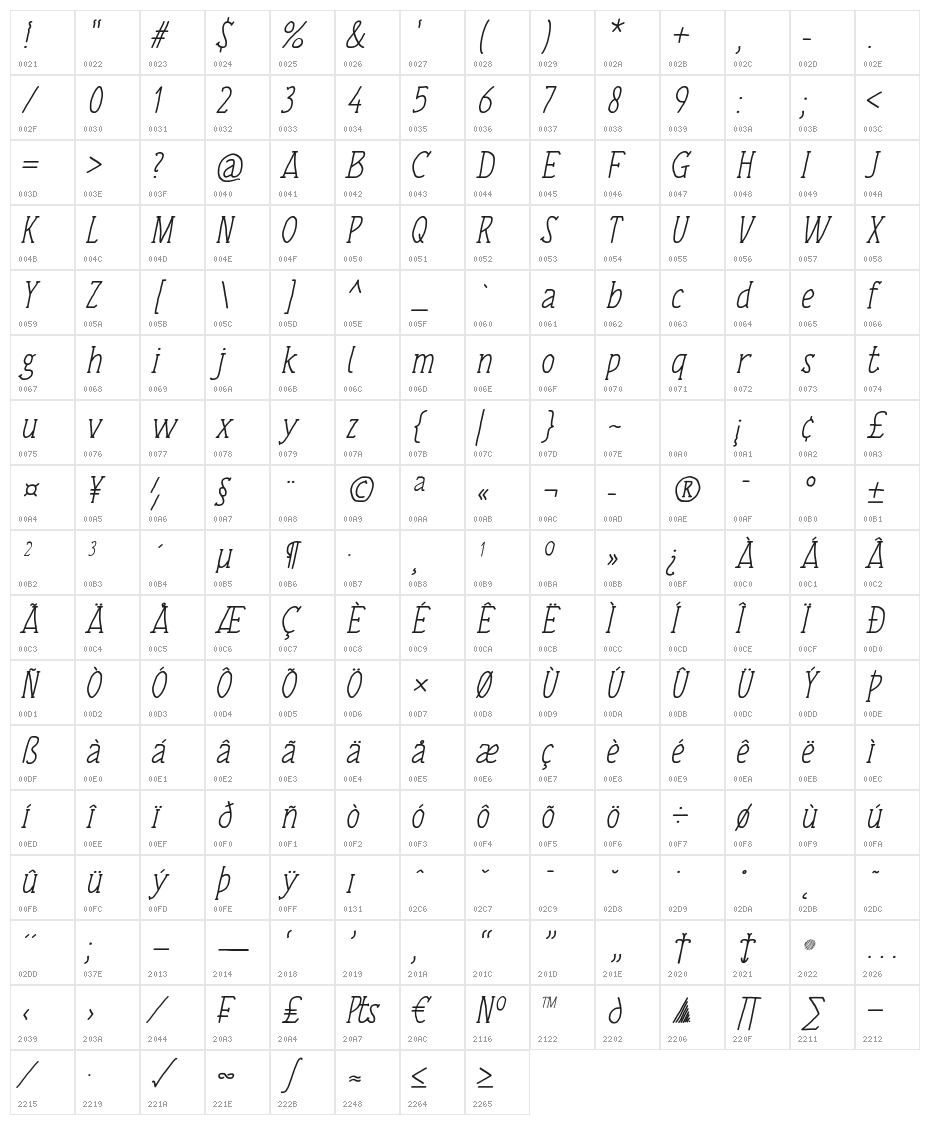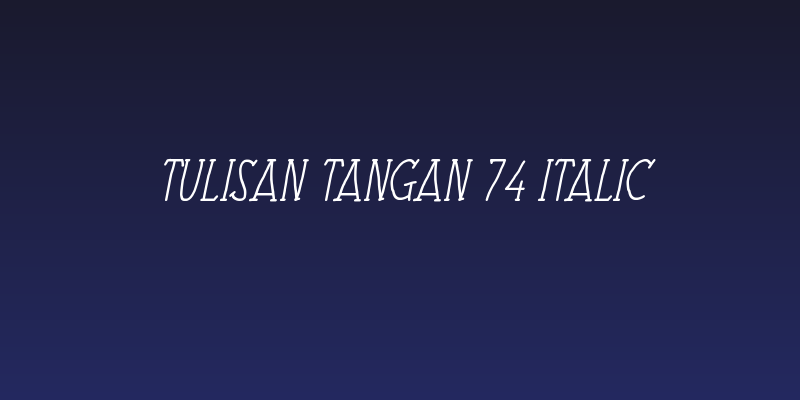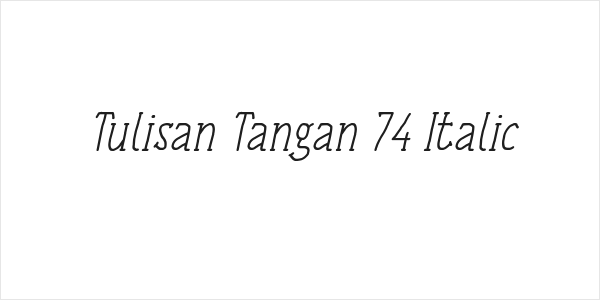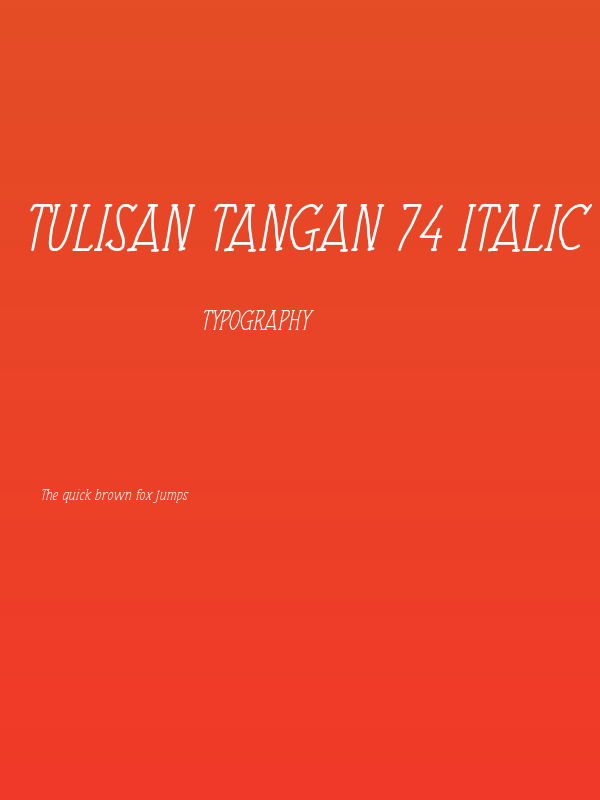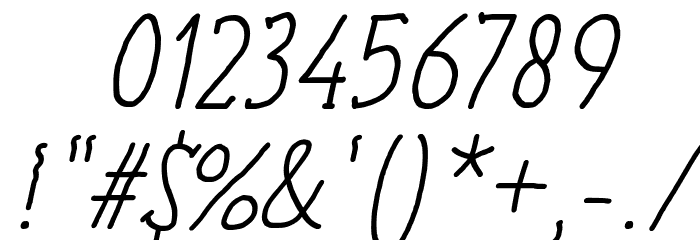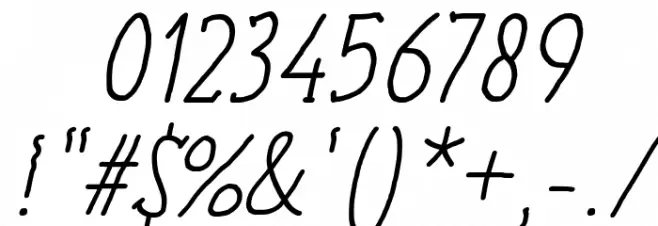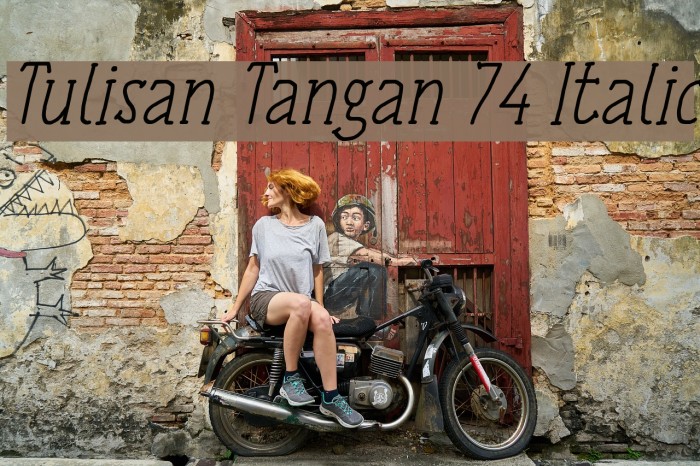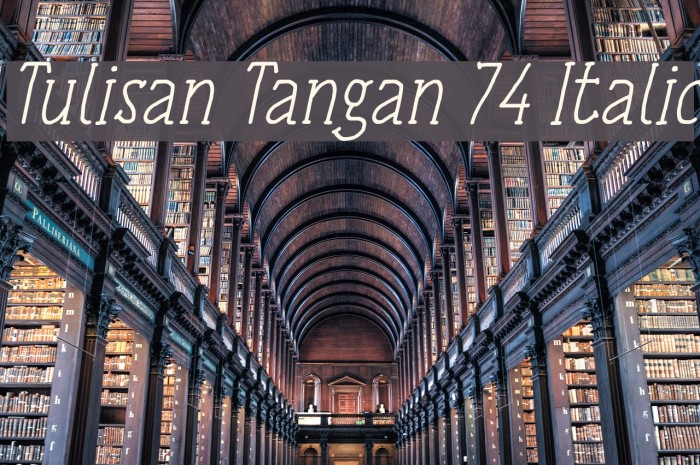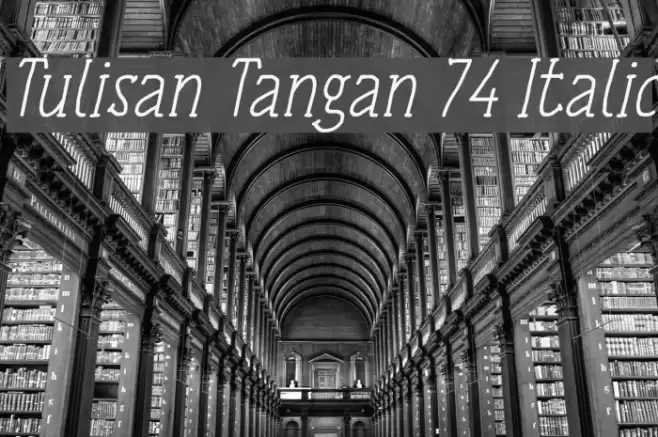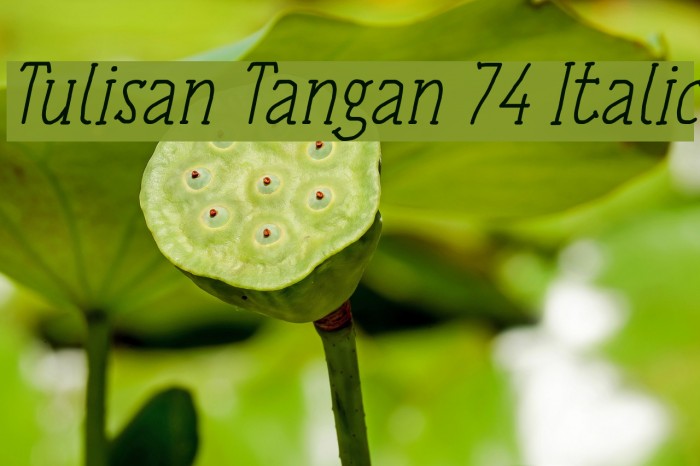
Tulisan Tangan 74 Italic Font
Tulisan Tangan 74 Italic Description
This font features a handwritten style with a distinct italic slant, giving it a dynamic and personal touch. The characters are elegantly curved, with a consistent stroke width that maintains readability while adding a touch of sophistication. The uppercase letters are slightly taller than the lowercase, providing a nice contrast and balance. The numbers and special characters are well-integrated, maintaining the overall aesthetic. This font is ideal for projects that require a personal, yet professional feel.
| Use Case | Logos, Headlines, Creative writing |
| Proposed Projects | Ideal for personal invitations, greeting cards, branding projects, and creative writing. |